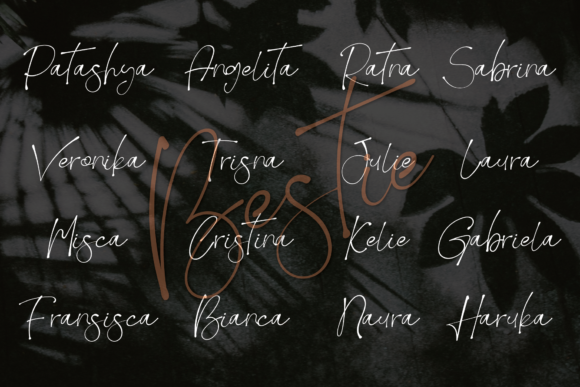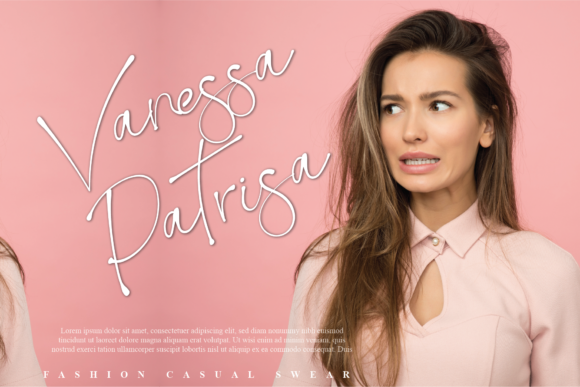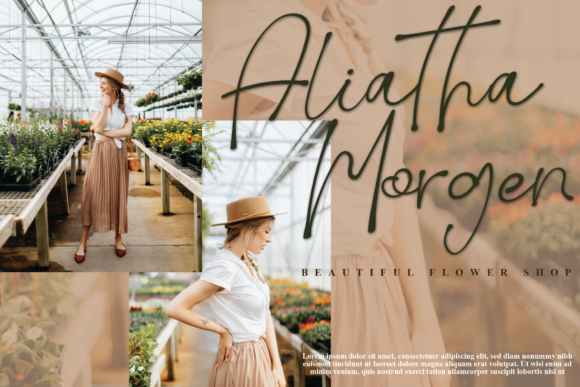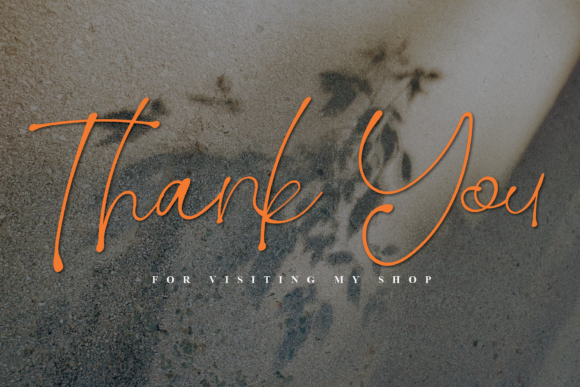
The Perfect Script for Your Next Design Project
Have you ever been stuck in a creative rut, scrolling through your font library, searching for the perfect script to elevate your design? I know I have. It’s that moment when you see something that sparks inspiration, and you can’t wait to bring it to life. For me, that moment came when I stumbled upon the Bestie Font.
This beautiful, thin-lettered, and round-lettered script font is a game-changer for any designer. Whether you’re creating a poster, flyer, or print, Bestie Font adds a touch of elegance and sophistication that’s hard to resist. Its versatility and endless possibilities make it a valuable addition to any designer’s toolkit. With Bestie Font, the possibilities are endless, and your designs will thank you.
Bestie Font Key Features
- Font Family: Bestie is a sans-serif script font designed for digital use, making it perfect for modern designs.
- Font Size: Bestie is available in 6 font sizes, ranging from 10pt to 60pt, allowing for flexibility in design applications.
- Resolution: Bestie supports high-resolution designs, making it suitable for use in digital applications such as social media, websites, and mobile apps.
- Unique Characteristics: Bestie features a unique blend of modern and handwritten elements, giving it a friendly and approachable feel.
- Language Support: Bestie supports a wide range of languages, including Latin, Greek, and Cyrillic scripts, making it a versatile font for global designs.
Bestie Font Review
Overall, I think the Bestie font has some great qualities, but also some areas where it falls short. ✨ Let’s dive in and explore both the positives and negatives.
- Handwritten charm: The Bestie font has a beautiful, handwritten feel that’s perfect for adding a touch of personality to your designs.
- Playful vibe: The font’s playful and bubbly nature makes it ideal for kids’ products, party invitations, and other fun projects.
- High-resolution support: The Bestie font looks great at various resolutions, making it suitable for both digital and print projects.
- Readability issues: While the font is great for headings and titles, it can be challenging to read in body text due to its irregular letterforms and varying line widths.
- Lack of bold and italic options: The Bestie font is only available in regular and bold weights, which can limit its versatility in certain design situations.
Overall, the Bestie font is a solid choice for projects that require a playful, handwritten feel. However, its readability issues and limited font weights may make it less suitable for projects that require clear, concise text. With a bit of creative workarounds, though, the Bestie font can still be a great addition to your design toolkit.
Bestie Font: A Practical Application Guide
The Bestie font is perfect for:
- Creating playful and whimsical designs.
- Adding a touch of personality to social media graphics.
- Designing children’s products and educational materials.
Tips for Getting the Most Out of the Bestie Font
To get the most out of the Bestie font, try:
- Combining it with bold and italic styles for added emphasis.
- Using it in conjunction with other playful fonts for a unique look.
- Experimenting with different font sizes and colors to create visual interest.
Alternatives to Bestie Font for Designers
Great Vibes is a modern, elegant script font ideal for creative projects, logos, and branding. It features a flowing, handwritten feel and is suitable for use in headings and titles. Great Vibes is similar to Bestie Font in its elegant and sophisticated style, but it has a more refined and polished appearance.
Carolyna Pro is a stylish, high-end script font perfect for luxury brands, invitations, and special occasions. It features a classic, sophisticated feel and is suitable for use in headings, titles, and body text. Carolyna Pro is similar to Bestie Font in its elegant and sophisticated style, but it has a more refined and classic appearance.
Ostrich Sans is a modern, sans-serif font with a friendly and approachable feel. It features a clean and simple design, making it suitable for use in body text, headings, and titles. Ostrich Sans is different from Bestie Font in its sans-serif style, but it has a similar friendly and approachable feel.